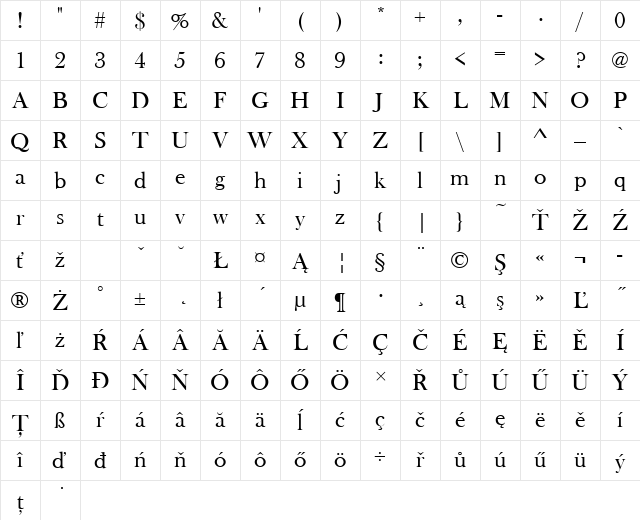
BaskervilleOldFacDEE Regular
Design Context for BaskervilleOldFacDEE
BaskervilleOldFacDEE is a composed and adaptable typeface that performs quietly and consistently across a wide range of design contexts.